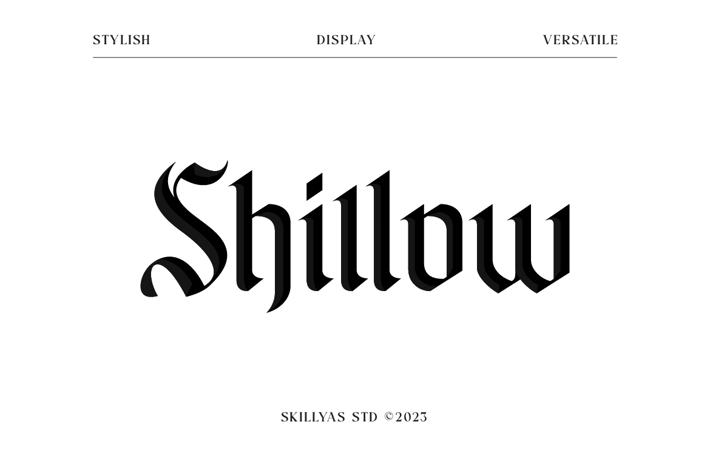
Shillow Gothic Font
Shillow is a gothic style Blackletter font with a strong and elegant look. it has clean lines and a minimalistic design with a curvy edge. Perfect for creating contemporary designs that demand a refined aesthetic.
- Uppercase & Lowercase Letters
- Punctuation & Symbols Support
- PUA encoded Range Standard Alternative Style
- Ligature (Standard and Discretionary)